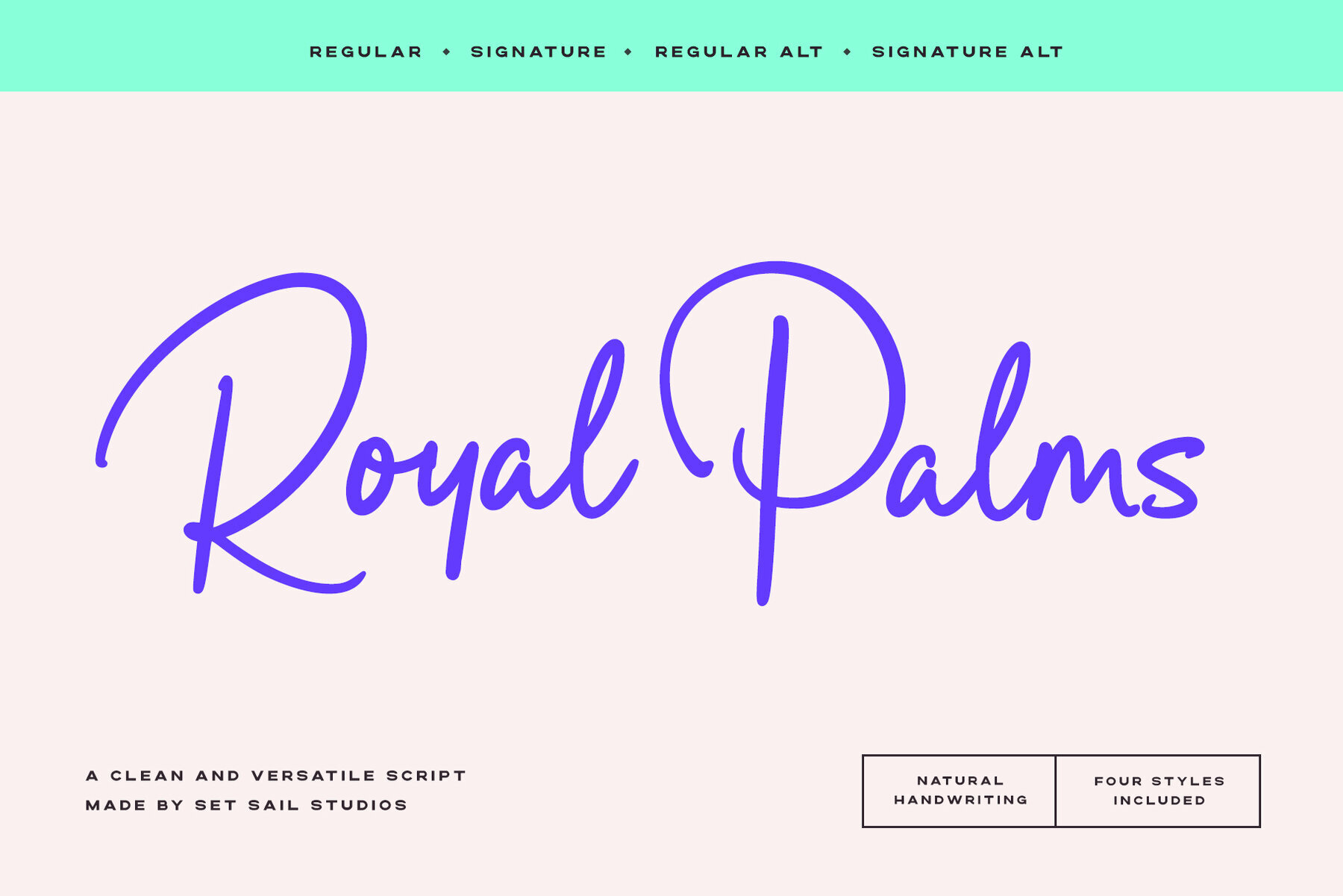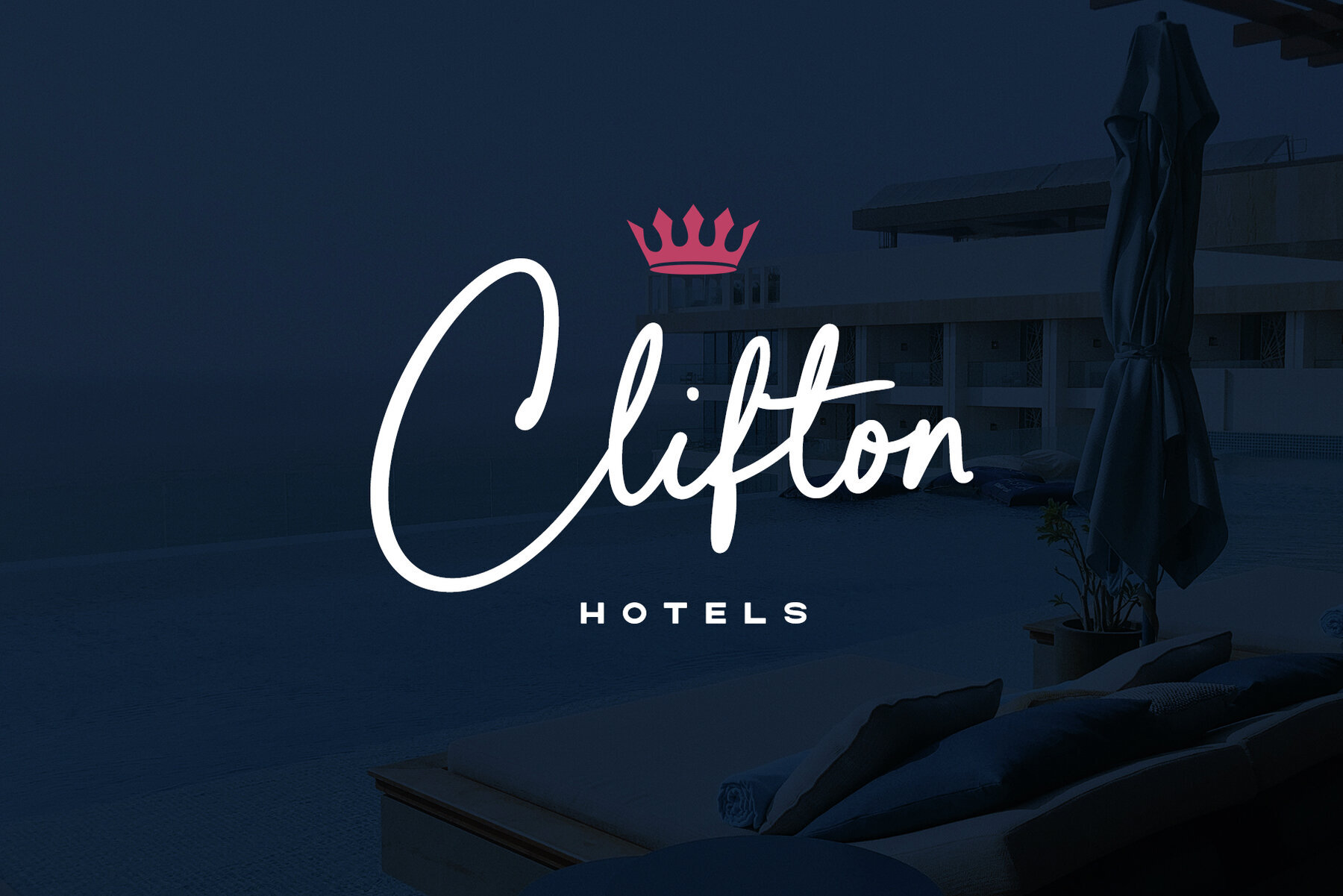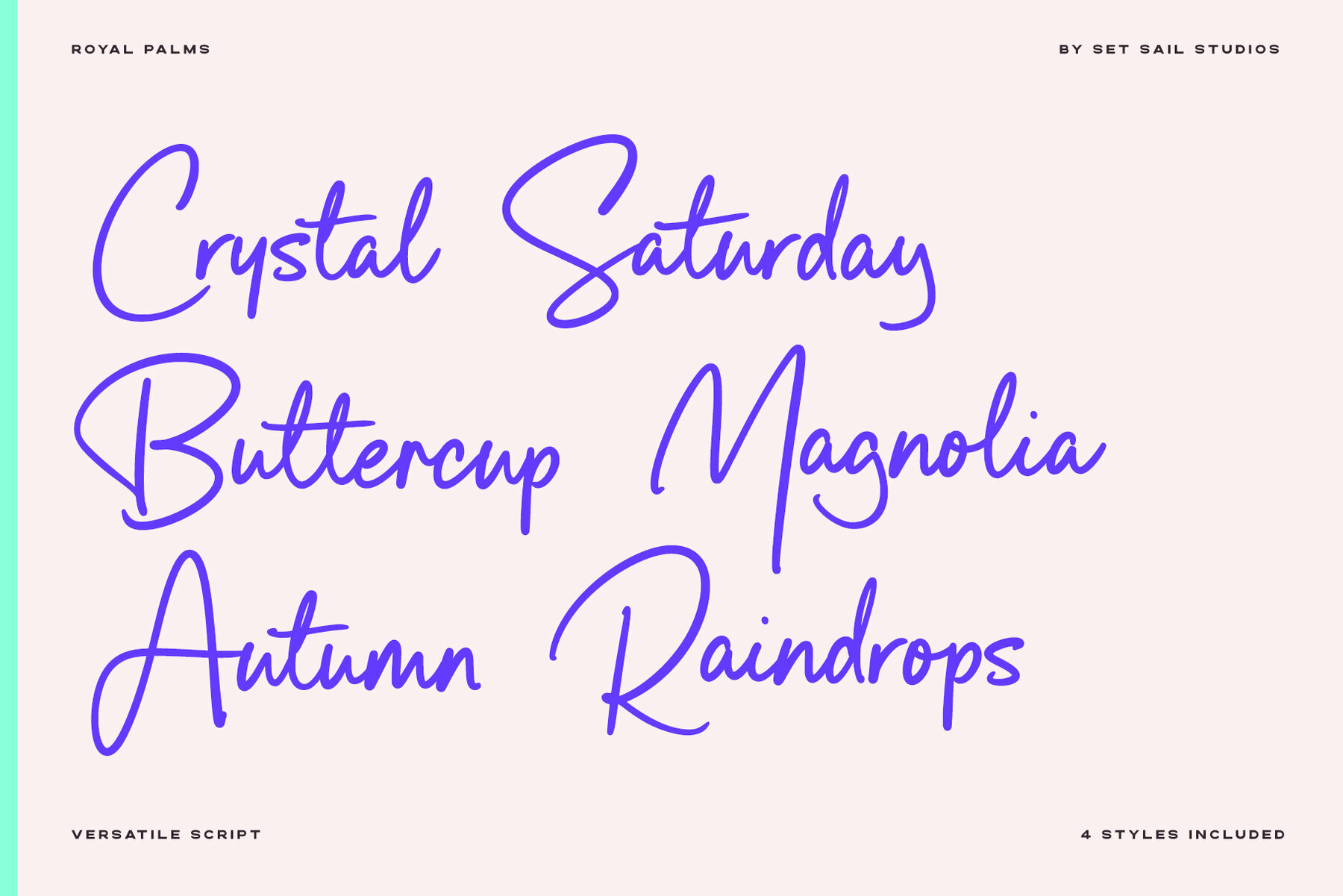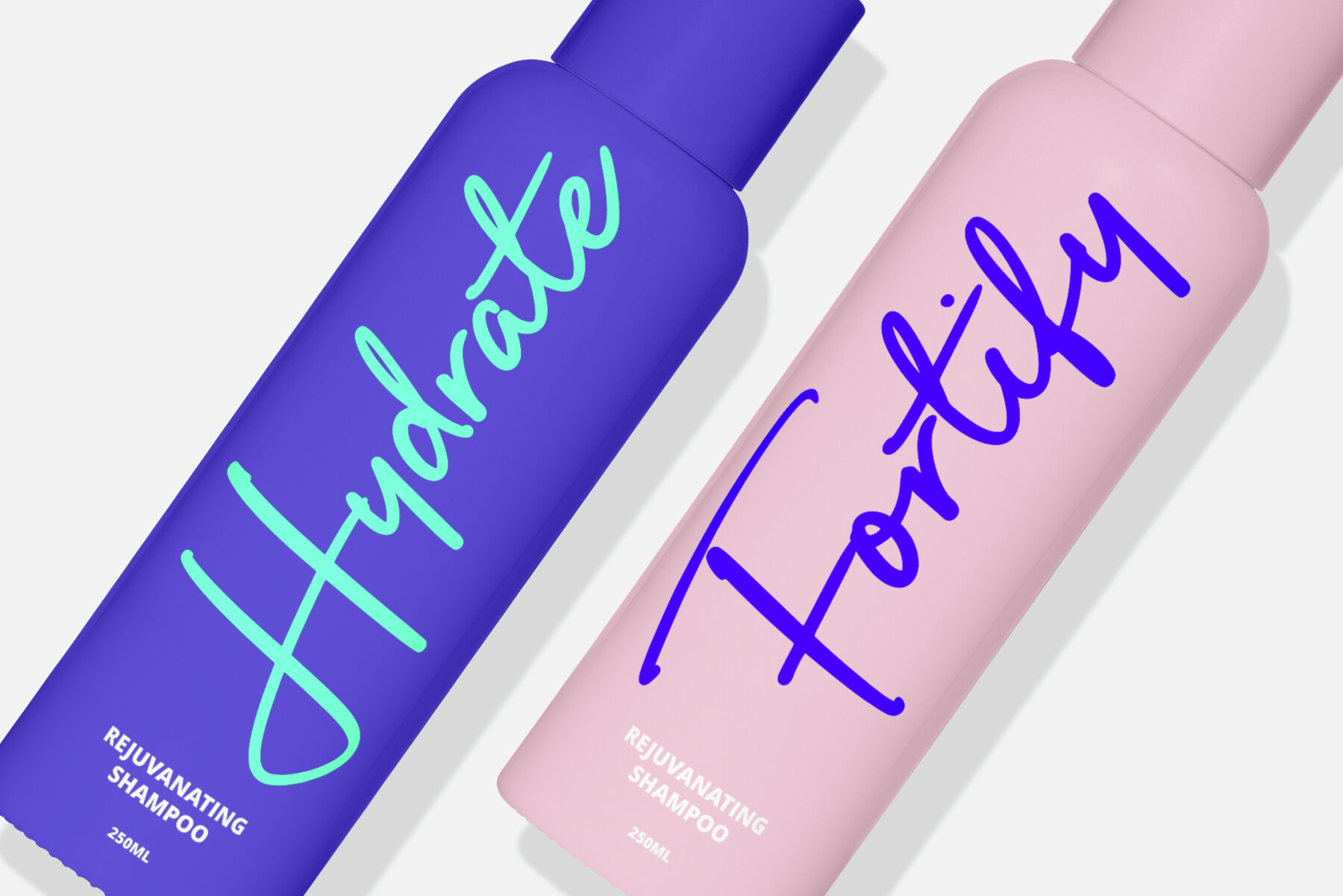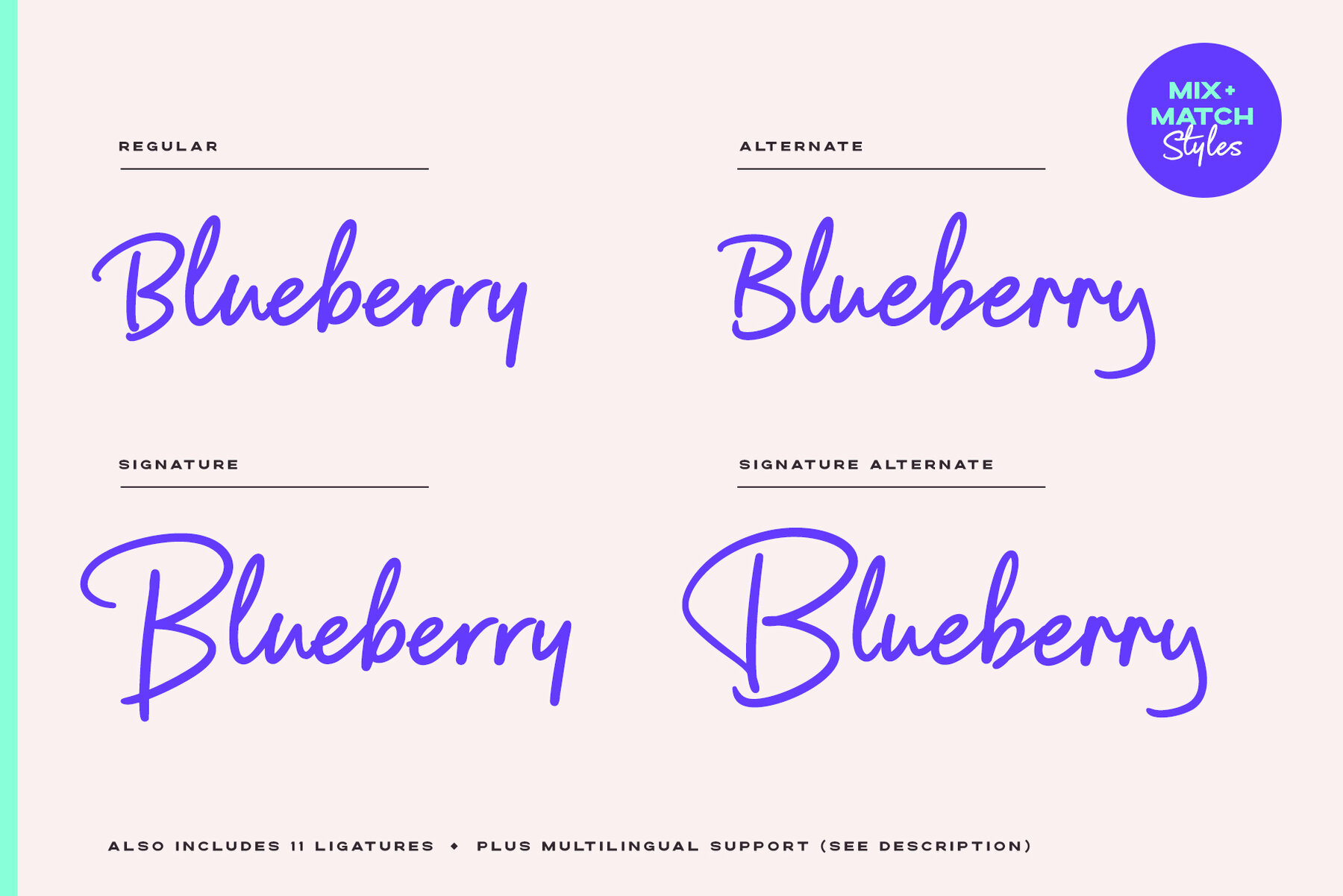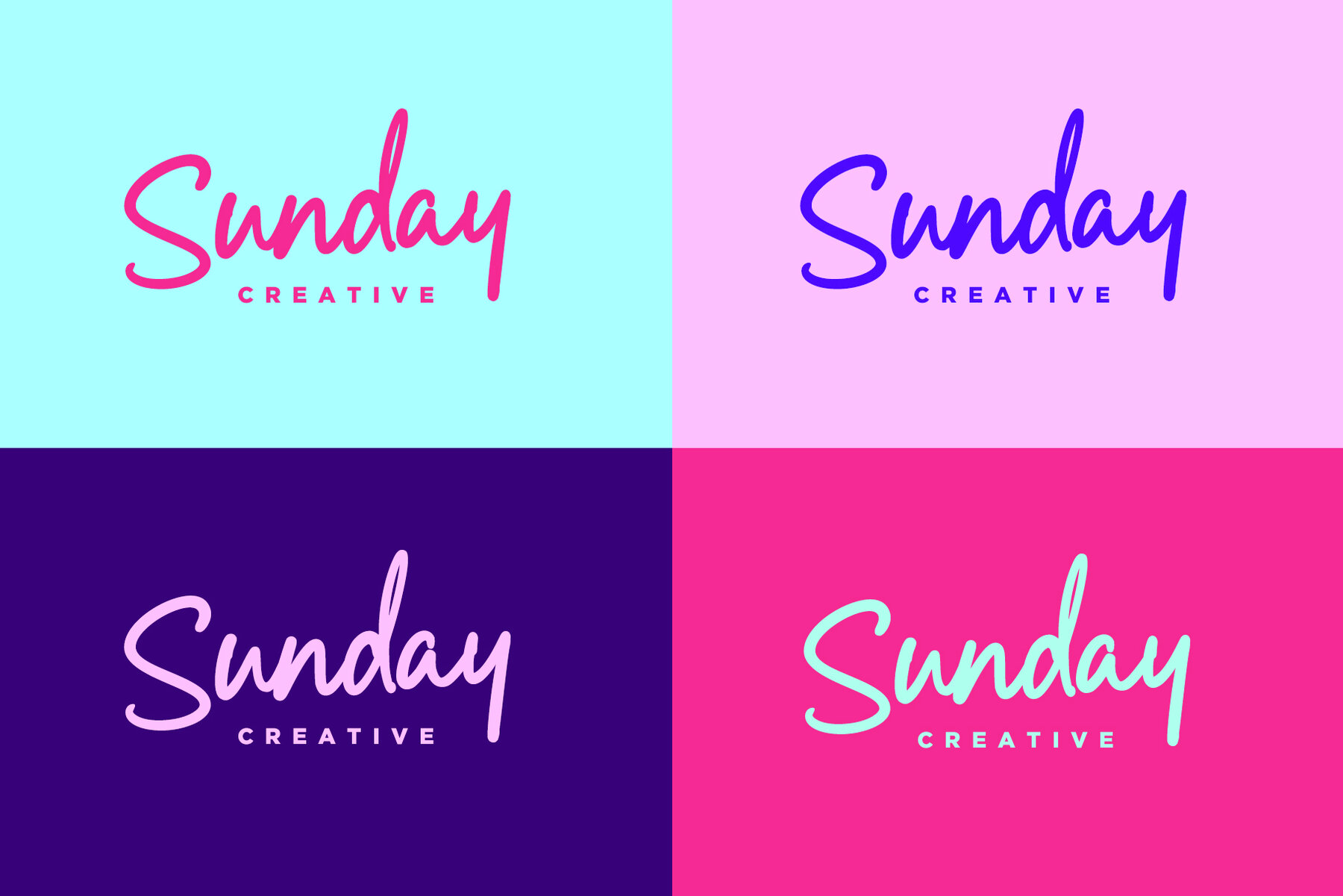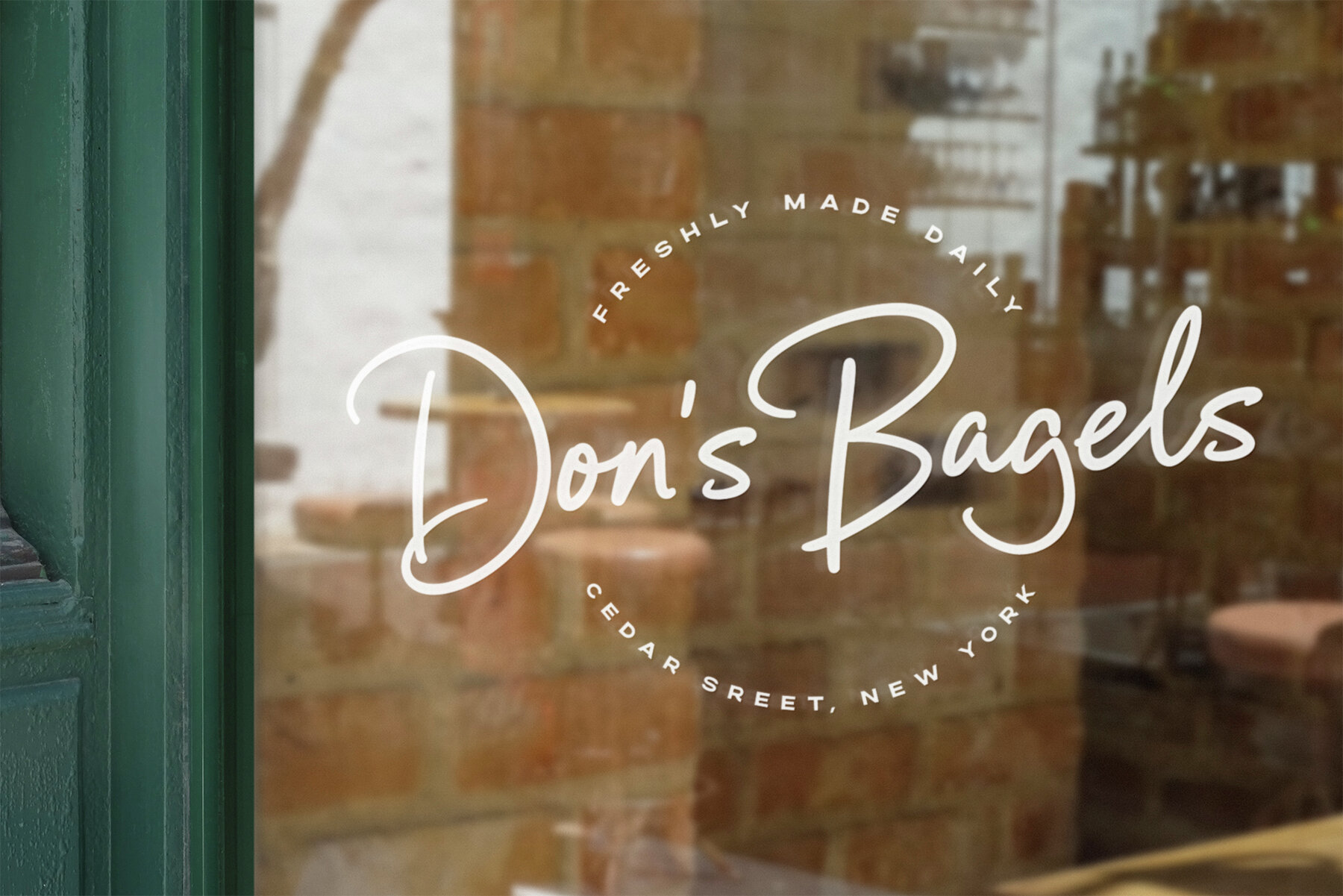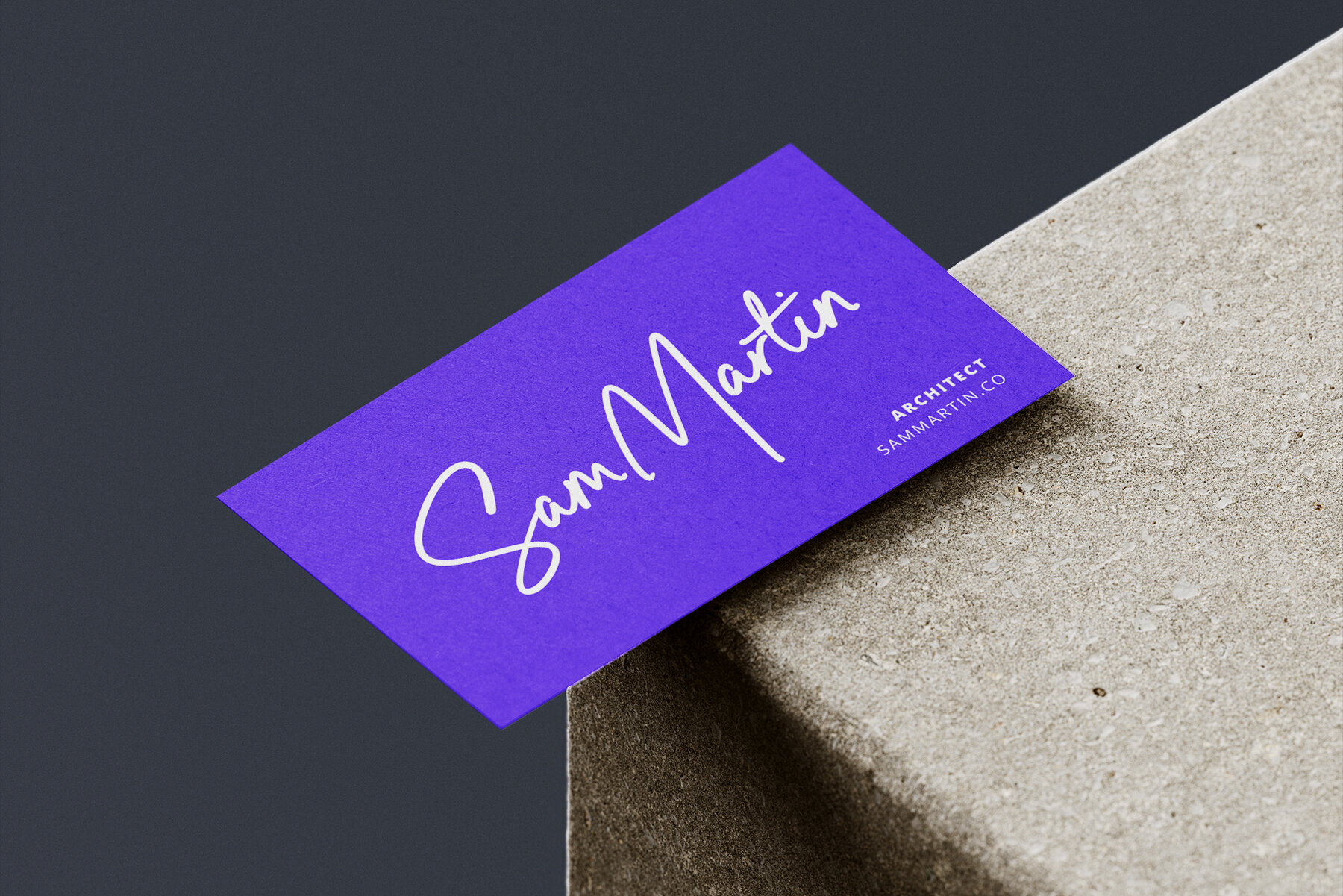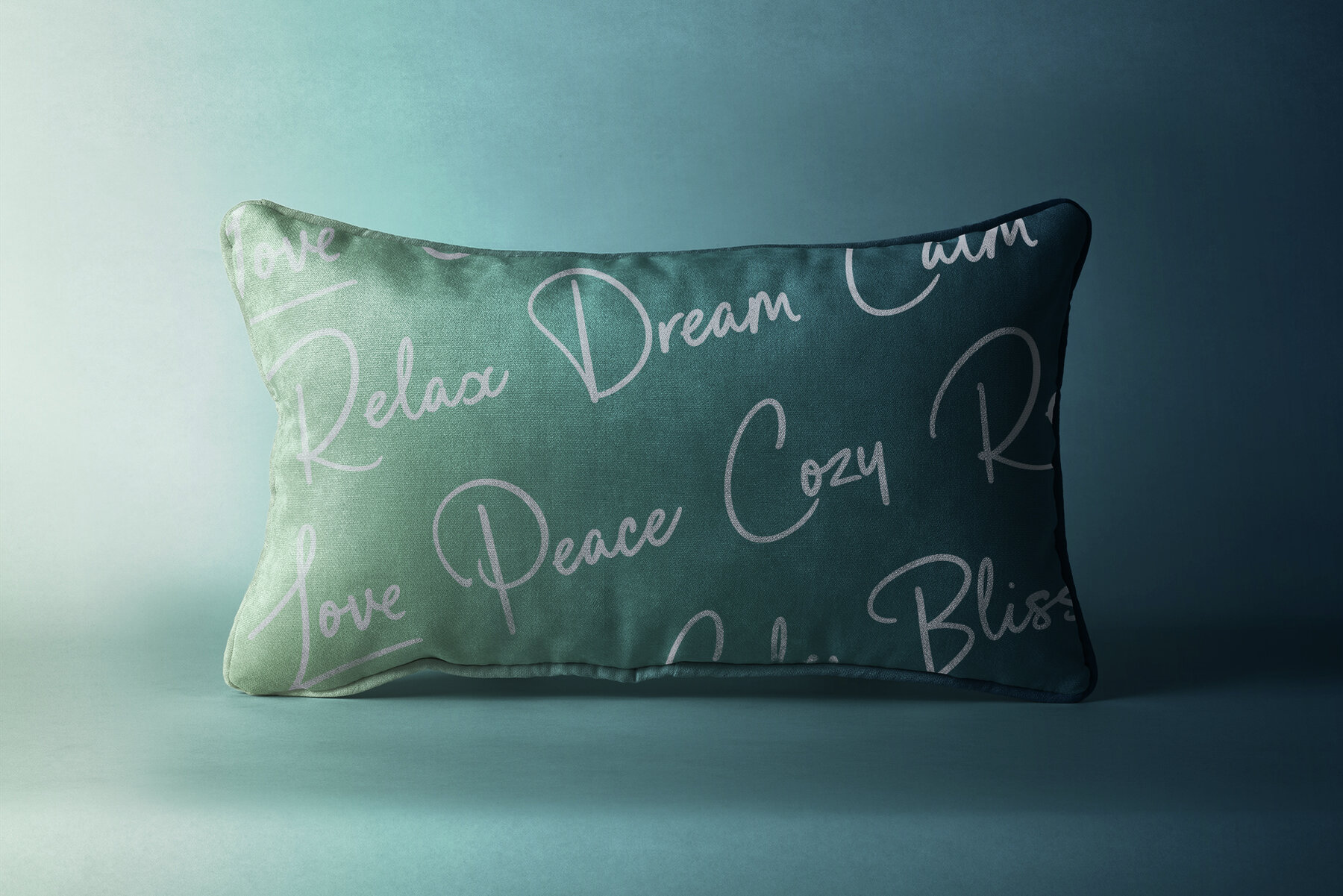
Royal Palms Font
Let the natural letterforms flow with Royal Palms, a clean & casual script font by Set Sail Studios. The Royal Palms family includes four fonts; The Signature version contains a larger, more exaggerated set of capital letters which is perfect for signature-style logos and display text. The Regular version offers a more practical set of smaller capital letters, for use when space is more limited. Both the Regular and Signature styles include a full set of alternate characters available as their own separate fonts, which can be used for an alternative word layout, or to mix and match with the regular versions to create a more customised look. It’s a timeless script set which is equipped to tackle a variety of design briefs for years to come. Language Support • English, French, Italian, Spanish, Portuguese, German, Swedish, Norwegian, Danish, Dutch, Finnish, Indonesian, Malay, Hungarian, Polish, Croatian, Turkish, Romanian, Czech, Latvian, Lithuanian, Slovak, Slovenian.
Standard Ligatures • ti, tt, tl, ll, lt, ve, ov, wr, ox, nx, wx, rx.